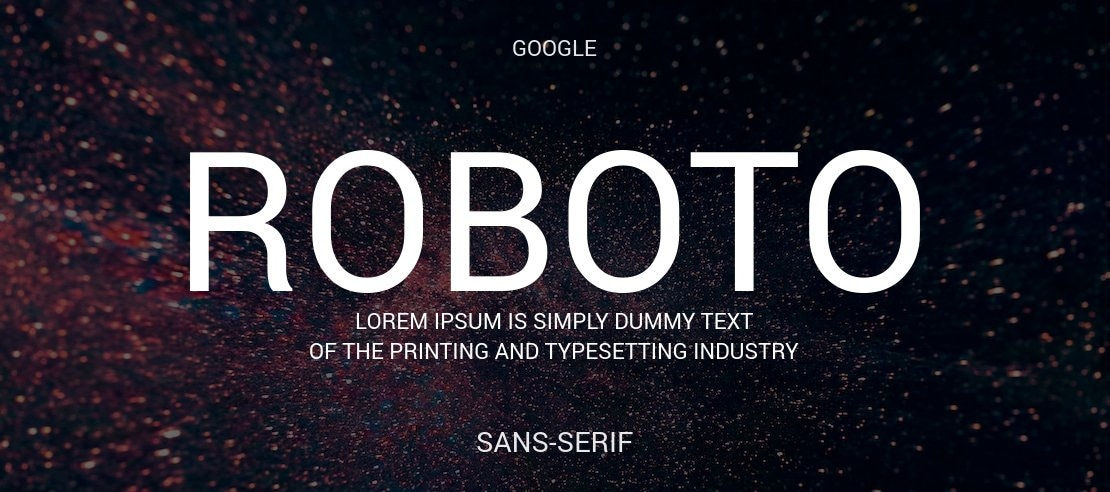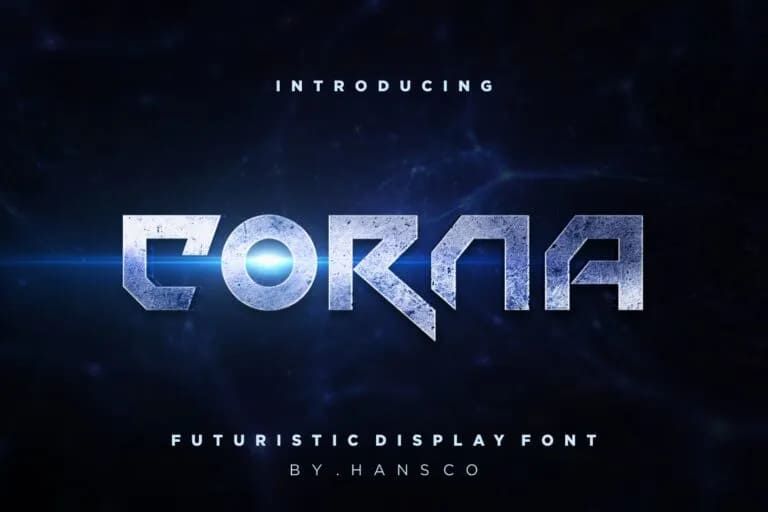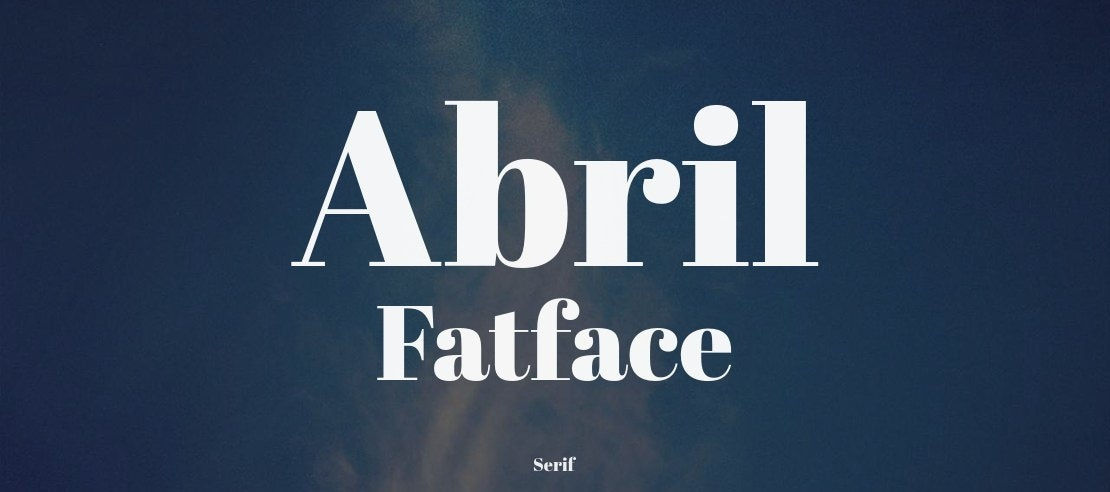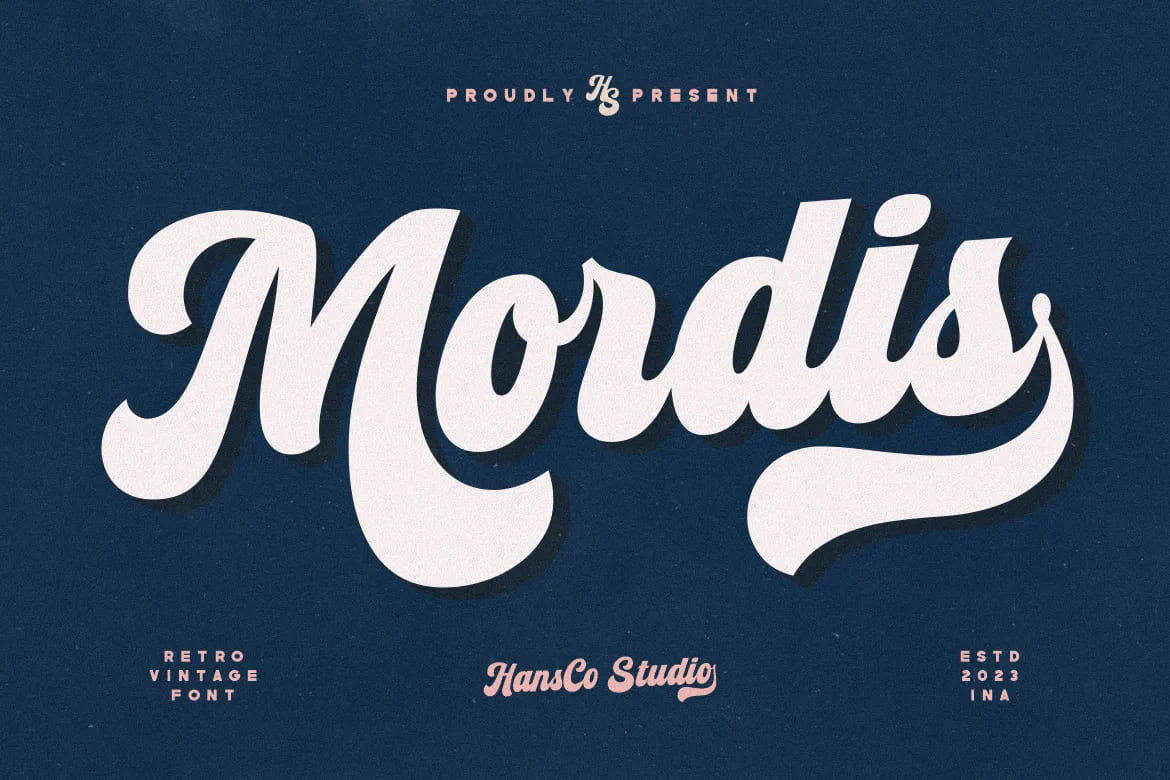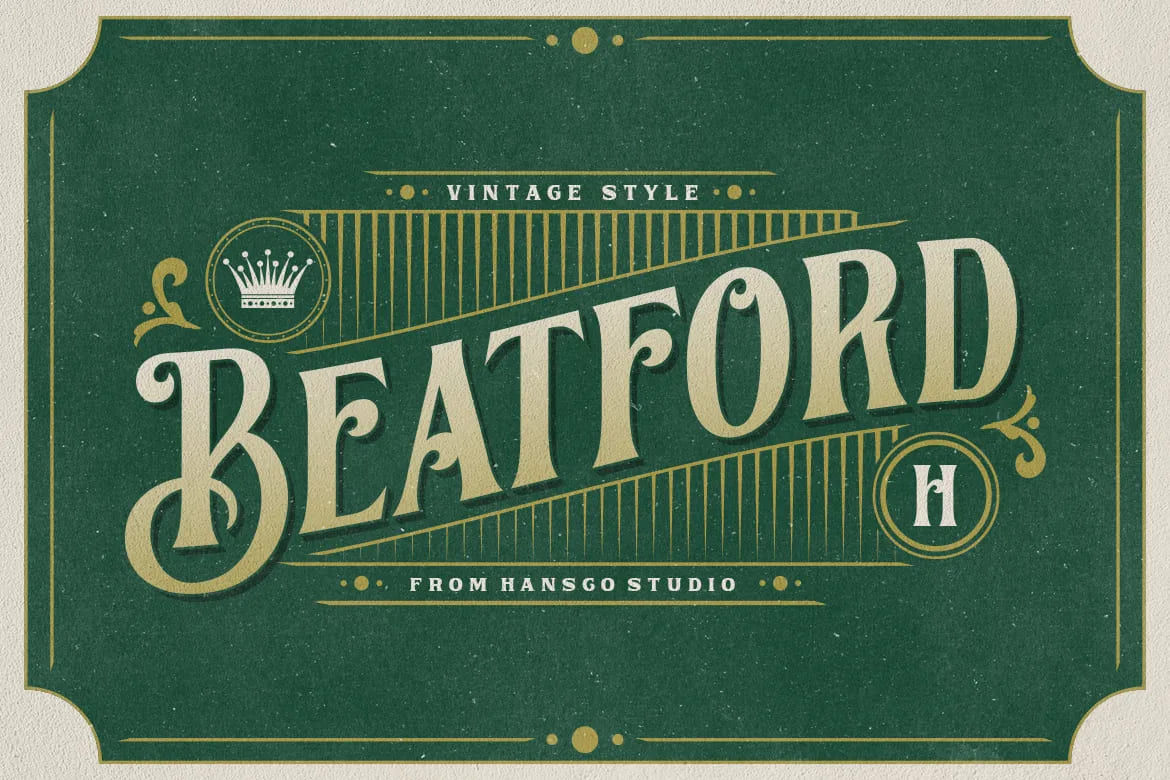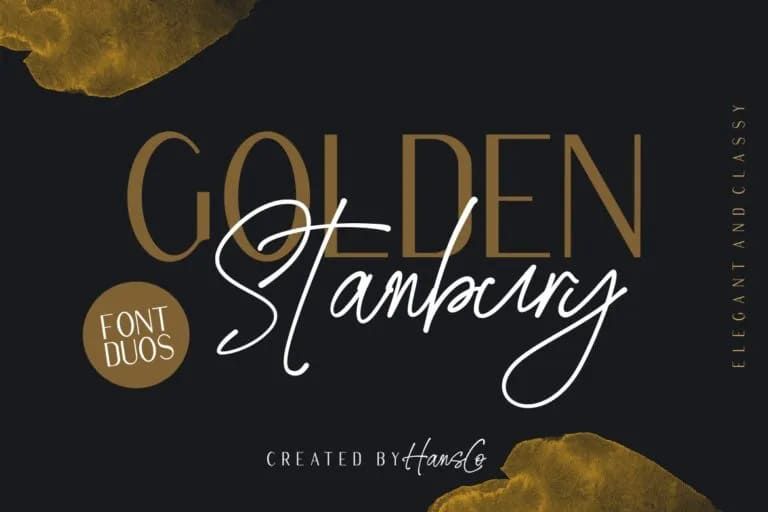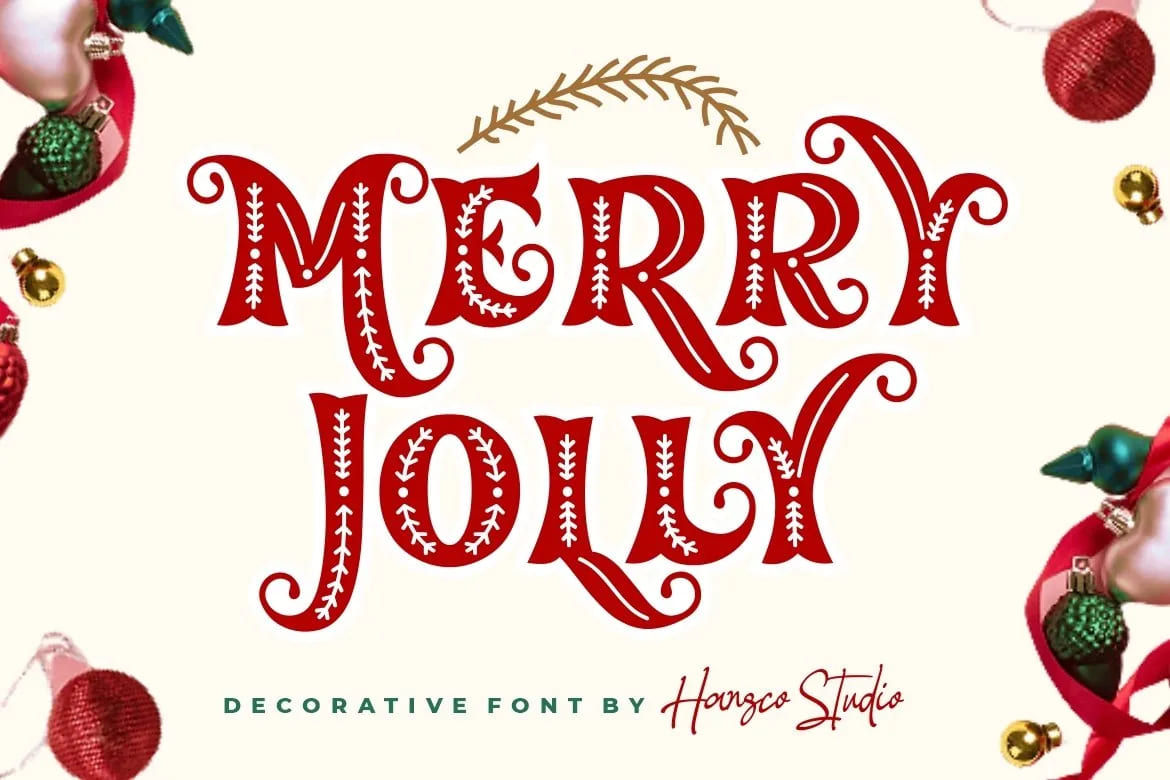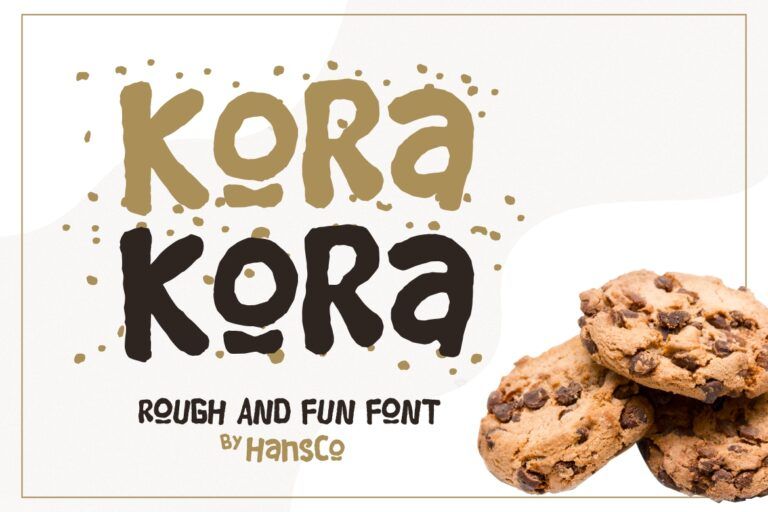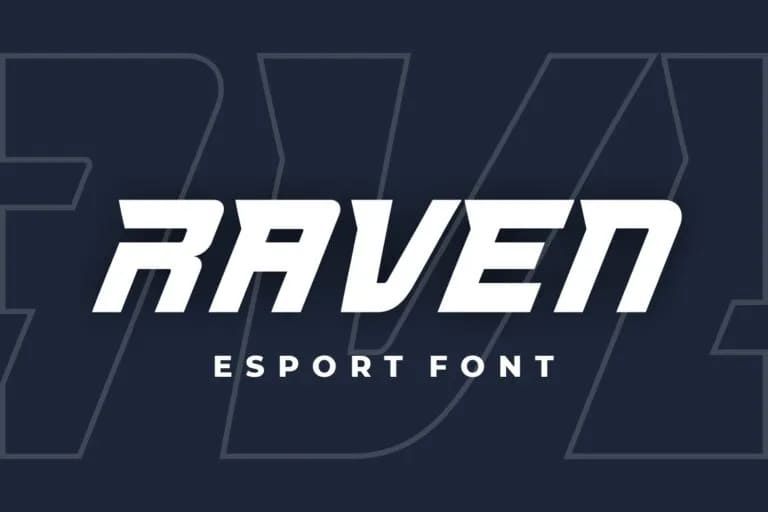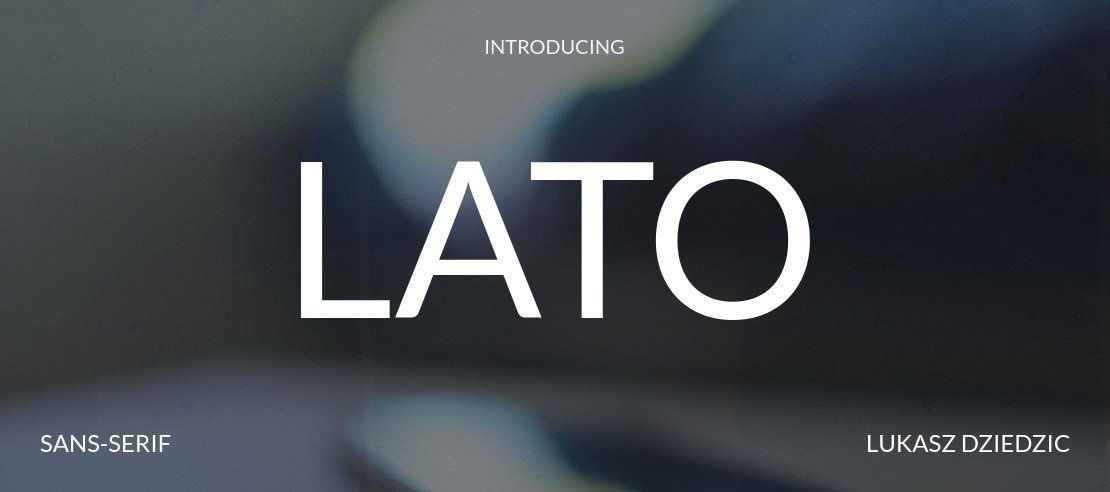
Fonts for Posters: 20 High-Impact Styles for Maximum Clarity
To deliver a message effectively, fonts for posters must balance strong visual impact with clear readability. The right font choice helps attract attention, guide the reader’s eyes, and ensure information is easy to understand, even from a distance.
Studies on typographic legibility indicate that clear and readable fonts enhance visibility and comprehension, particularly for posters that are viewed briefly. With this in mind, this article lists the top 20 fonts for popular posters and when to use them to bring impactful marketing. Keep reading!
20 Eye-Catching Posters Fonts with Excellent Clarity
The right font can instantly enhance a poster’s impact. These eye-catching poster fonts offer excellent clarity, helping your message stand out while remaining easy to read.
1. Bakso Menu
Bakso Menu Font is a bold retro display font with smooth, rounded details. It adds a modern retro feel and works especially well for menu posters and casual branding.
2. Gilmer
Gilmer Font
Where readability and a polished appearance matter, Gilmer stands out. It is a simple, modern sans serif font with a smooth, well-balanced look.
3. Kora-kora
Kora Kora is a display-style sans serif font featuring rough, textured edges and a playful appearance. This font is a great choice among fonts for posters, especially for children-themed designs and food industry visuals.
4. Retro Harmony
Retro Harmony Font combines a modern look with a cute retro vibe. It is perfect for travel posters, coffee shop promotions, and apparel collection launch posters that want to stand out.
5. Glamor
Glamor Font
Glamor Font is an elegant display font with a stylish and modern look. This font works beautifully for fashion posters and beauty branding projects.
6. Raven
Bold, sharp, and futuristic, Raven instantly grabs attention with its unique italic style. As one of the eye-catching fonts for posters, it works perfectly for technology and sports posters.
7. Shine Bubble
Shine Bubble boasts a bold, decorative style with a clean, modern retro aesthetic. It’s an excellent choice for playful-themed posters.
8. Lato
Lato Font
Lato is a highly versatile sans-serif font characterized by its clean and readable style. Its balanced letterforms make it suitable for posters across various industries.
9. Milky Bun
Milky Bun instantly catches the eye with its smooth, rounded curves. Warm and fun in character, it stands out among fonts for posters and is perfect for designs in the furniture, food, and fashion sectors.
10. Hanela Rusty
Hanela Rusty Font feels like a walk through a cozy vintage café, bold, classic, and full of character. The added swash characters give designers more freedom to create warmth and artistic visuals.
11. Roboto
Roboto Font
With its simple forms and balanced proportions, Roboto delivers excellent readability across different formats. It is a dependable choice for posters that prioritize clarity.
12. Aeros
Built with sharp lines and uppercase forms, Aeros delivers a strong futuristic character. Among bold fonts for posters, it is perfect for modern designs that want to showcase a high-tech and innovative vibe.
13. Corna
Corna features bold, sharp shapes with a clean, technical structure. This futuristic display font keeps a modern look while staying clear and precise, ideal for futuristic movie posters.
14. Abril Fatface
Abril Fatface Font
Abril Fatface Font | Source: font.download
If you want your poster to feel bold and elegant, Abril Fatface is perfect. The font’s high-contrast, refined serif letters give your design a strong, classy look.
15. Mordis
Mordis Font brings a fun, retro vintage vibe to your designs. As one of the playful fonts for posters, it adds a modern retro flair to any casual-themed poster that needs to stand out.
16. Beatford
Beatford sparks a timeless, classic vibe. Use it for pomade, coffee, or barber shop branding to instantly infuse your designs with old-rustic charm.